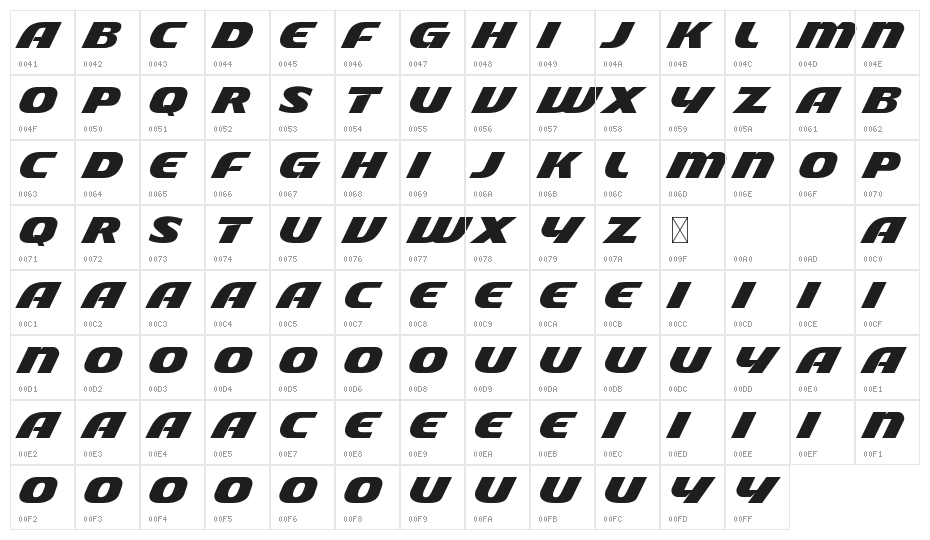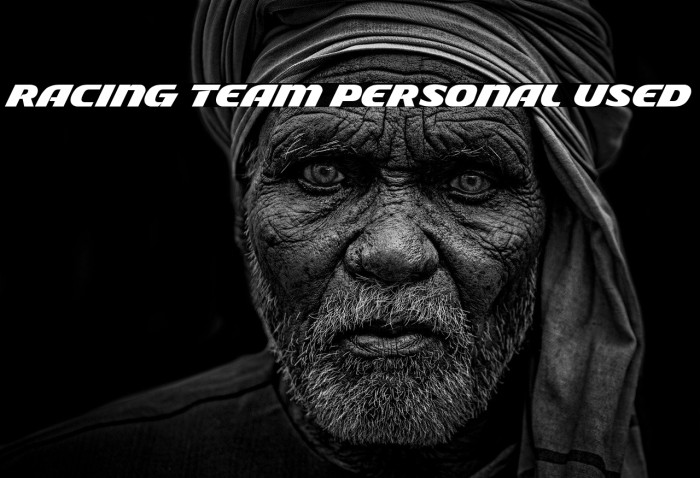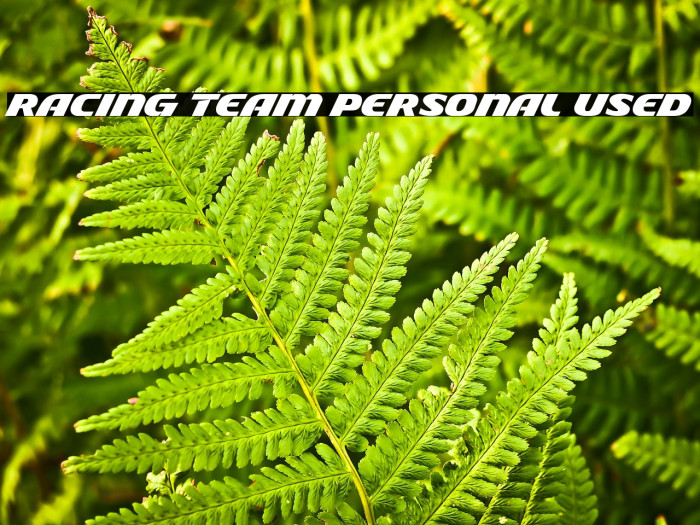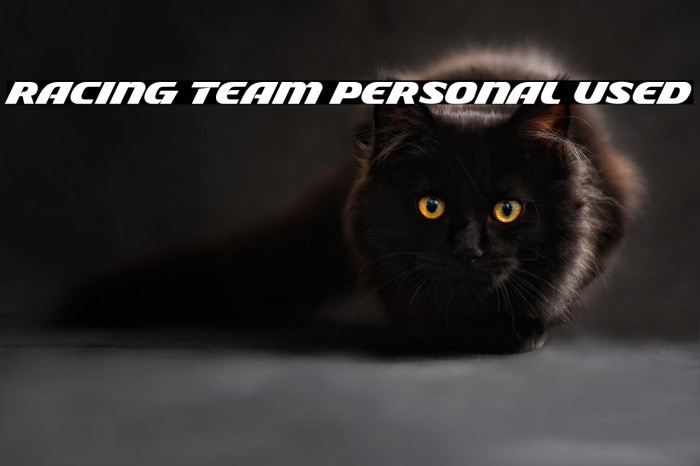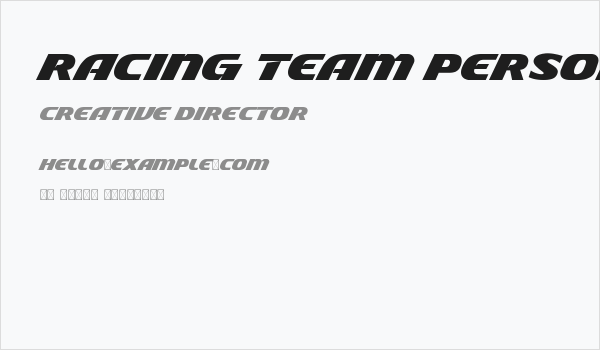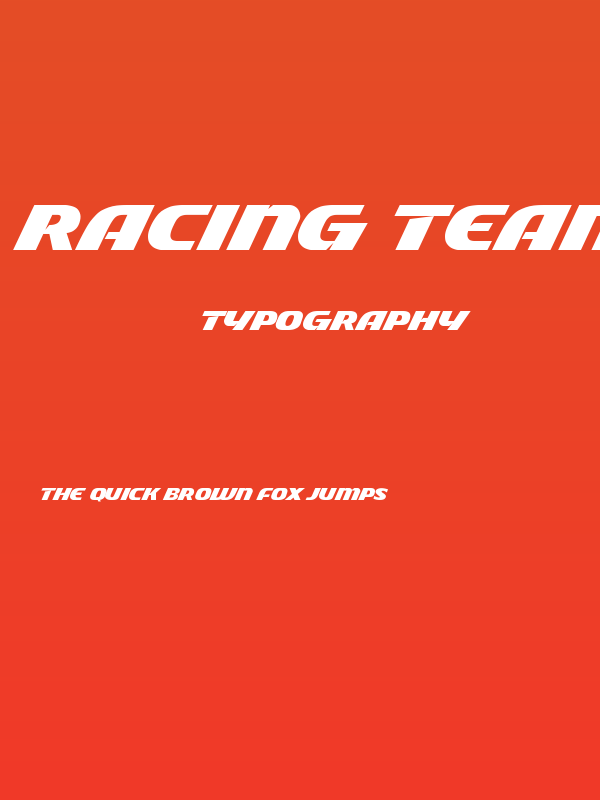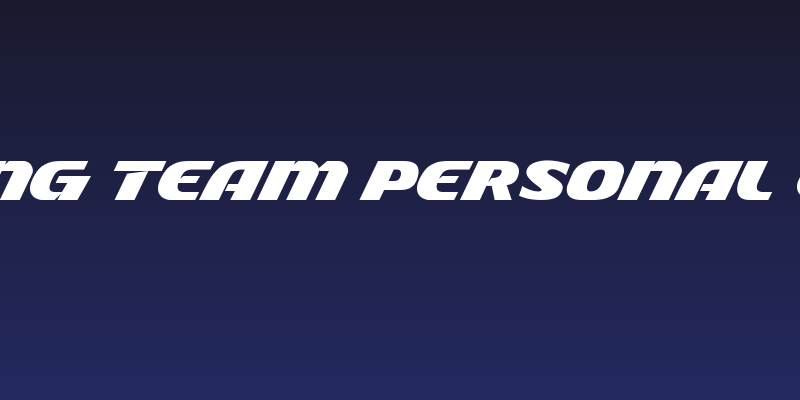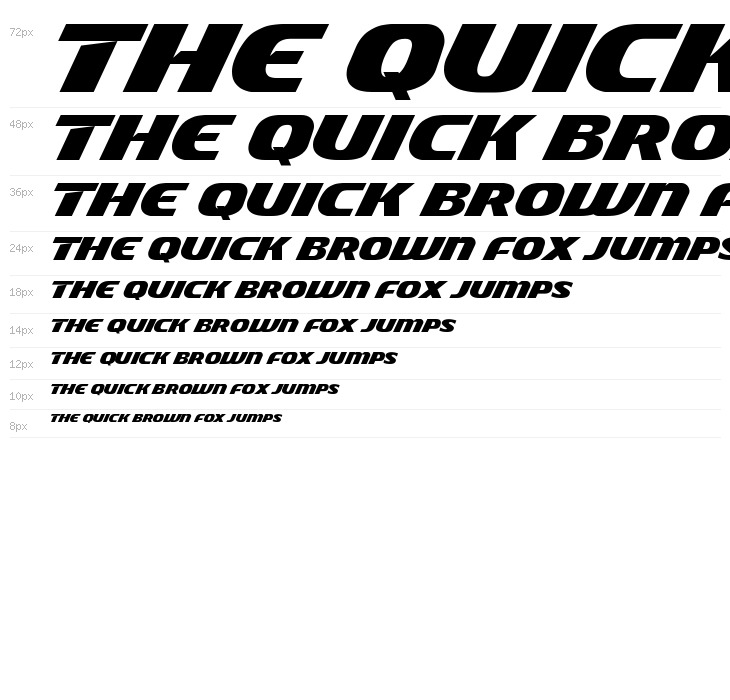
Racing Team Personal Used Font
Racing Team Personal Used Description
A bold, italicized sans-serif font with a modern and dynamic style, featuring slanted characters that convey speed and movement.